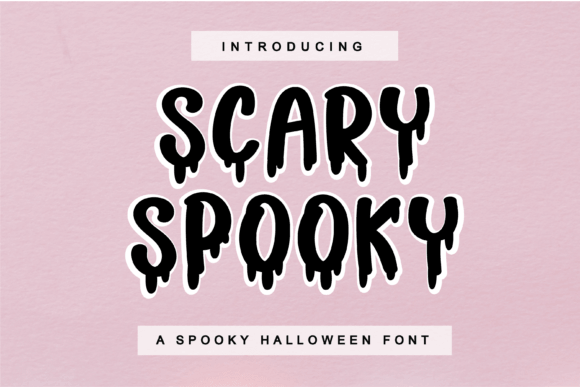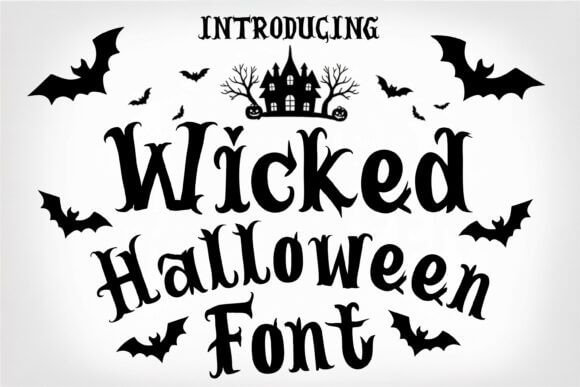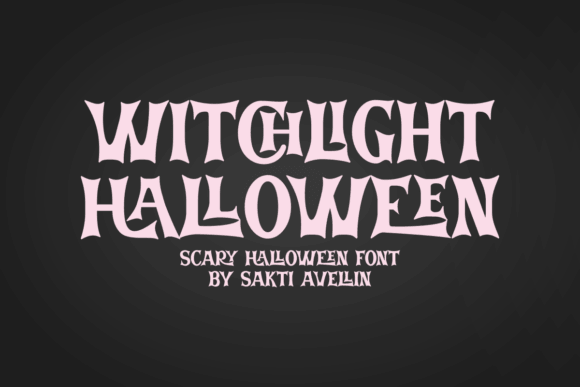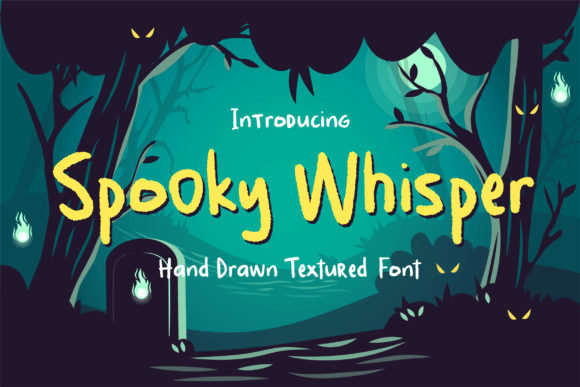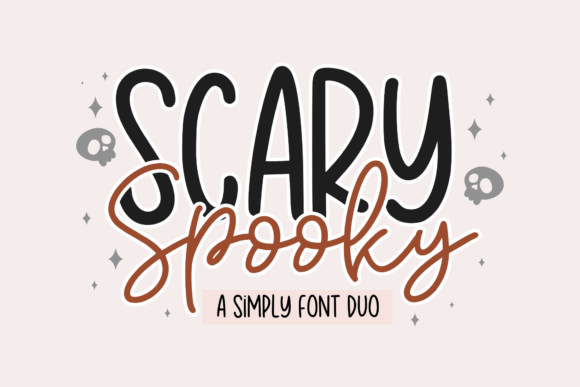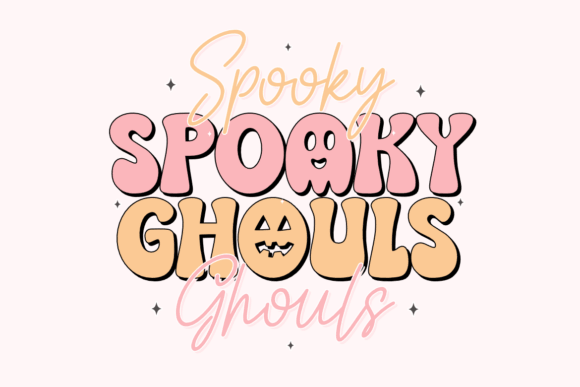
Scary Spooky Fonts For Bold Halloween Headlines
As far as halloween fonts free picks go, Scary Spooky has those scratchy edges that do the heavy lifting for you. We’d use it for Halloween poster design, haunted event headers, or fast shirt mockups when you want the word itself to feel like the scare. It hits quick.
Best Uses For This Font
- Haunted House Flyers – Sharp words grab attention across a crowded wall.
- October T-Shirt Prints – One-color designs still feel loud and fun.
- Party Invite Covers – Adds instant menace without extra illustration.
- Streaming Thumbnail Art – Stays readable when the layout gets tiny.
Wicked Halloween Fonts With Vintage Bite
Wicked Halloween leans retro, not goofy, which is a rare win in this niche. We think it suits retro horror branding and poster work where you want old VHS energy, cracked carnival vibes, and readable letters that still feel a little dangerous.
Where This Style Works Best
- Retro Candle Labels – Gives handmade products a dark throwback mood.
- Horror Podcast Covers – Strong title treatment for weekly episode art.
- Bar Event Posters – Feels grimy, cool, and easy to read.
- Seasonal Logo Refreshes – Useful for a temporary spooky twist.
Witchlight Halloween Fonts For Mystical Layouts
Witchlight Halloween feels more enchanted than monstrous, so gore would just ruin it. Use it for witchy invitation design, candle labels, moonlit event art, or mystical promos that need magic first and menace second.
Good Fits For This Look
- Moon Ritual Cards – Soft mystical energy with enough Halloween pull.
- Candle Jar Packaging – Pairs well with celestial icons and deep colors.
- Tarot Workshop Flyers – Creates mood before anyone reads the details.
- Mystic Blog Headers – Elegant enough for digital banners and promos.
Spooky Whisper Fonts For Creepy Elegant Type
Spooky Whisper is the sneaky one in this roundup. It fits eerie quote graphics and softer horror layouts where whispery tension, not screaming chaos, gives the design its punch. Honestly, that balance is hard to fake.
Smart Projects For This Typeface
- Quote Posters – Turns simple text into something moody and cinematic.
- Boutique Event Menus – Great for dark dinners and themed pop-ups.
- Dark Wedding Stationery – Creepy, yes, but still refined.
- Atmospheric Reel Covers – Nice for short-form video title frames.
Scary And Spooky Fonts For Playful Horror Art
Scary And Spooky feels playful enough for family projects but still carries some bite. For spooky kids apparel, classroom printables, treat-bag toppers, or pumpkin patch signage, it lands that sweet spot between creepy and friendly.
Best Uses For This Font
- Classroom Door Decor – Friendly scare level for younger audiences.
- Kids Costume Tags – Cute without getting toothless.
- Family Trick-Or-Treat Maps – Easy to spot on printed sheets.
- Playful Gift Stickers – Adds seasonal character to tiny surfaces.
Halloween Night Fonts For Dark Poster Design
Halloween Night goes darker and heavier, which makes it solid for large-format stuff. We’d reach for it in haunted event signage, teaser graphics, or promo banners that need to read from a distance without looking flat.
Where This Style Works Best
- Night Market Banners – Big letters cut through busy surroundings.
- Escape Room Ads – Sells tension fast.
- Outdoor Yard Signs – Holds presence from a distance.
- Ticket Booth Headers – Gives small event setups more drama.
Monster Halloween Fonts With Loud Retro Energy
Monster Halloween has loud retro energy, almost campy in the best way. It works for vintage October merch, arcade-style tees, playful posters, and throwback party kits that want Halloween with a grin instead of a growl.
Good Fits For This Look
- Arcade Style Shirts – Perfect for retro-camp Halloween drops.
- Throwback Party Flyers – Feels fun, loud, and not too polished.
- Pop-Up Booth Signs – Pulls browsers over with quick nostalgia.
- Fun Sticker Packs – Works on bold phrases and short names.
Spooky Ghouls Duo Fonts For Layered Titles
Spooky Ghouls Duo gives you pairing options, and honestly that saves a chunk of design time. The set suits layered typography effects, title-plus-subtitle layouts, and packaging where one font alone might feel a bit thin.